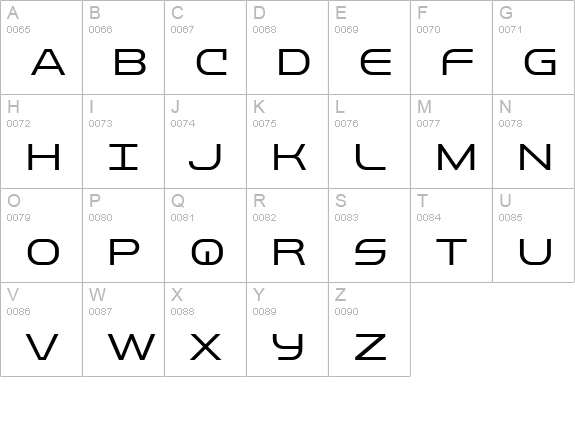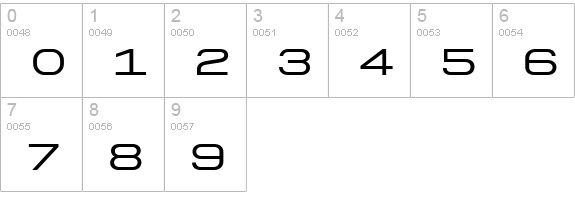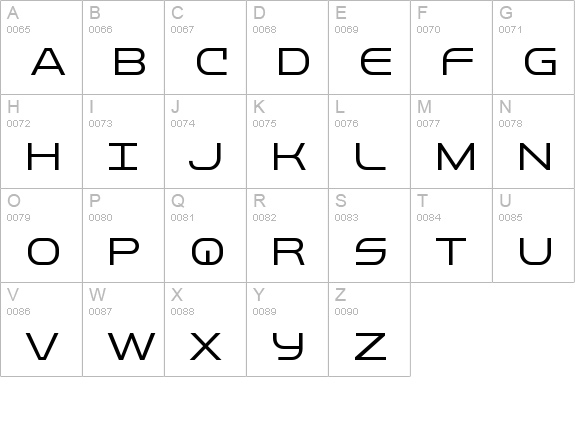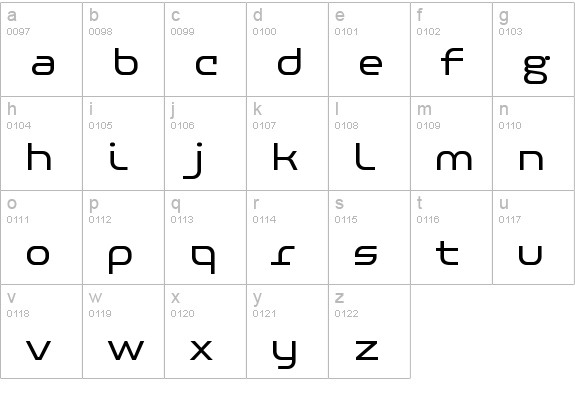
PFBaselinePro-Regular Font Details
PFBaselinePro-Regular is the standard, neutral variant in the PFBaselinePro typeface family \xE2\x80\x94 well suited to general body text, paragraphs, and standard typographic work.
PFBaselinePro-Regular is a versatile and stylish font that offers a perfect balance of modernity and sophistication. With its clean lines and elegant curves, this font exudes a timeless charm that is sure to elevate any design project. It is ideal for a wide range of applications, from branding and advertising to web design and packaging. What makes PFBaselinePro-Regular even more appealing is the fact that it is completely free to download. That's right, you can access this stunning font at no cost on FontsMarket.com. Whether you're a professional designer looking to add a new tool to your creative arsenal or a hobbyist exploring typography for the first time, PFBaselinePro-Regular is a must-have font that will enhance your work with its distinctive style and versatility. Download it today and unleash your creativity with this exceptional typeface.